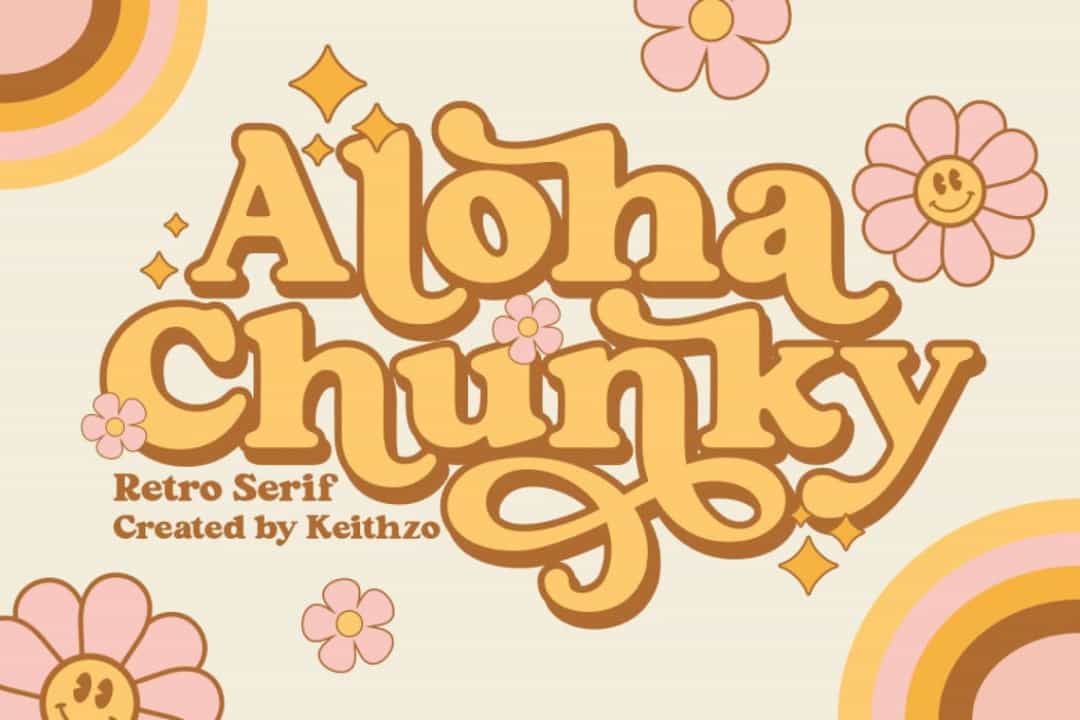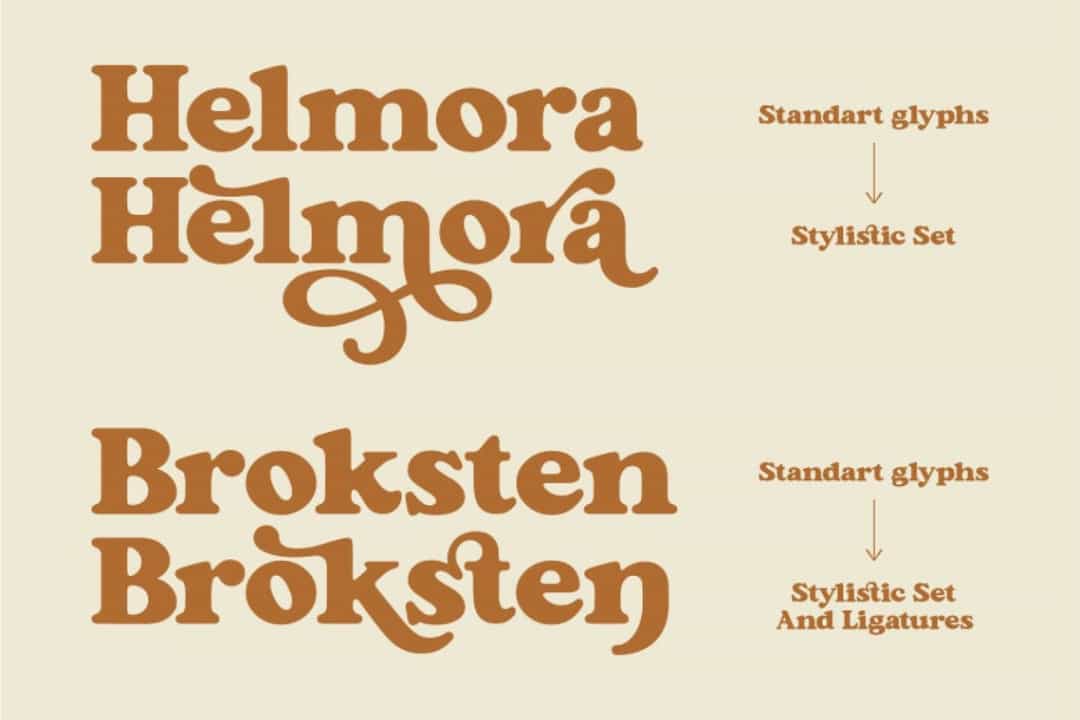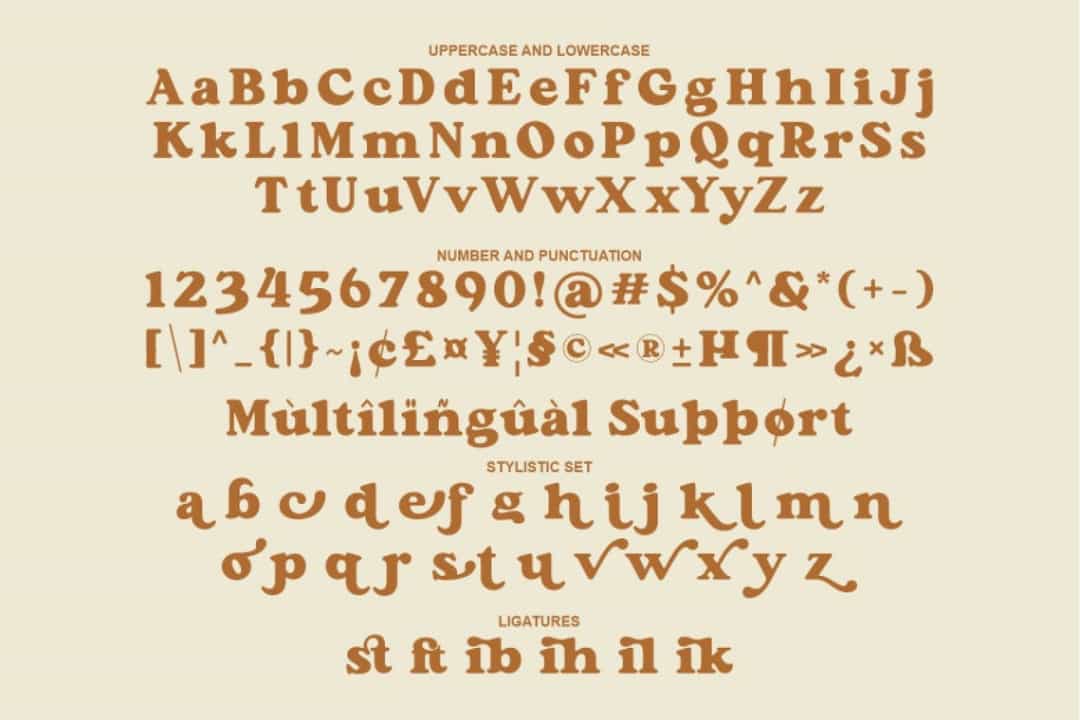
Aloha Chunky is a funky retro serif typeface reminiscent of 1970s Americana, featuring chunky letters with thick serifs that resemble old-fashioned letters. Ideal for creating designs inspired by retro design aesthetics such as albums, posters and advertisements with its playful yet nostalgic aesthetic, Aloha Chunky will add character and nostalgia to any project!